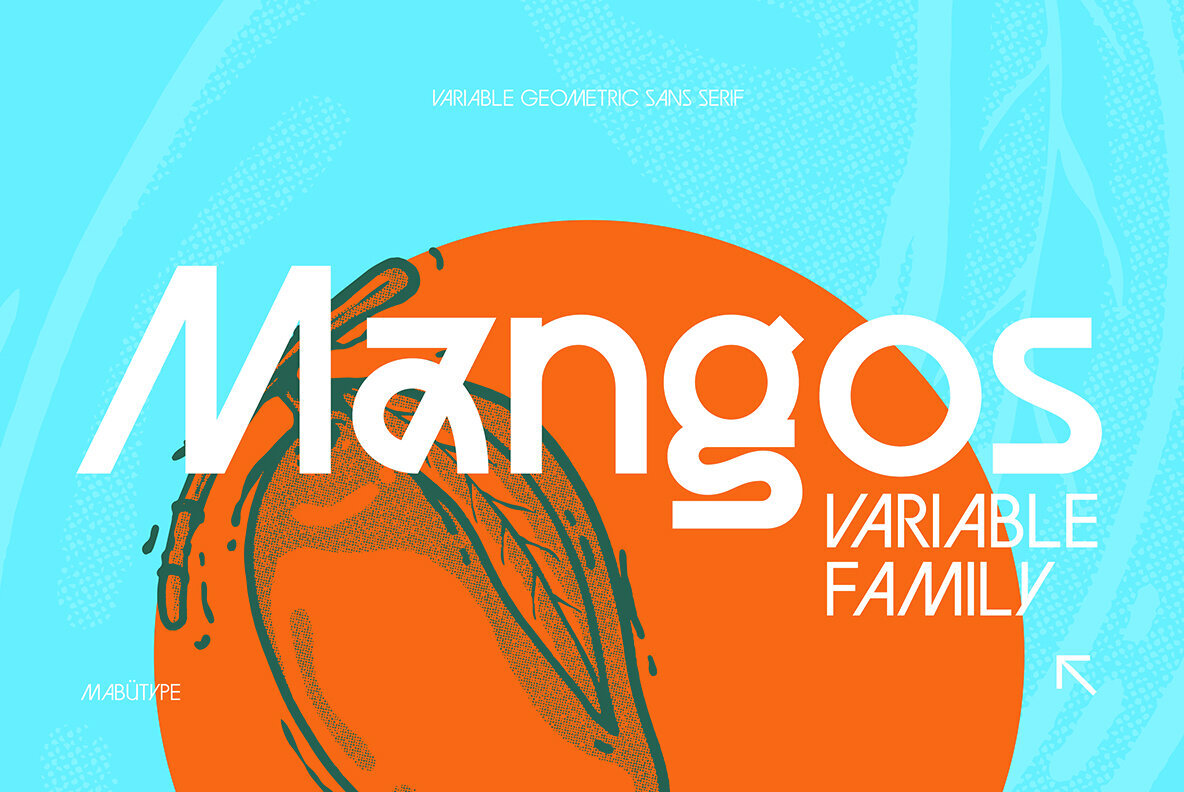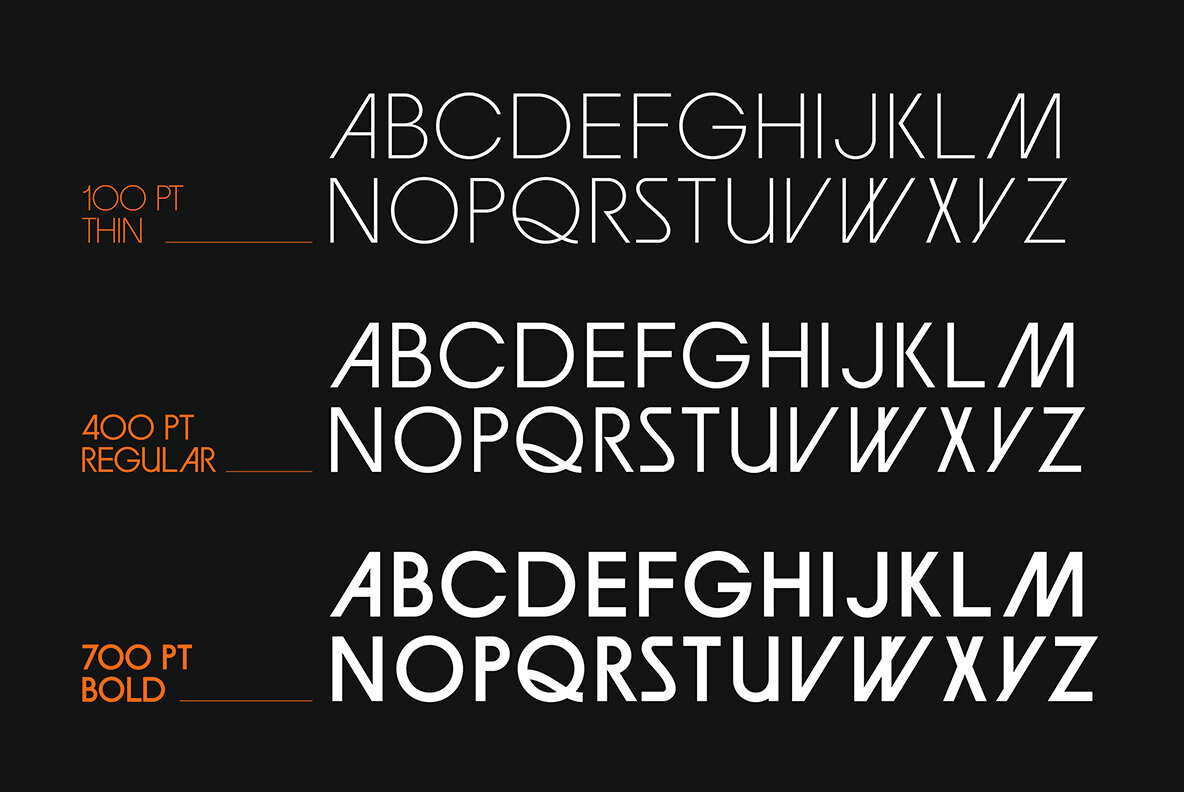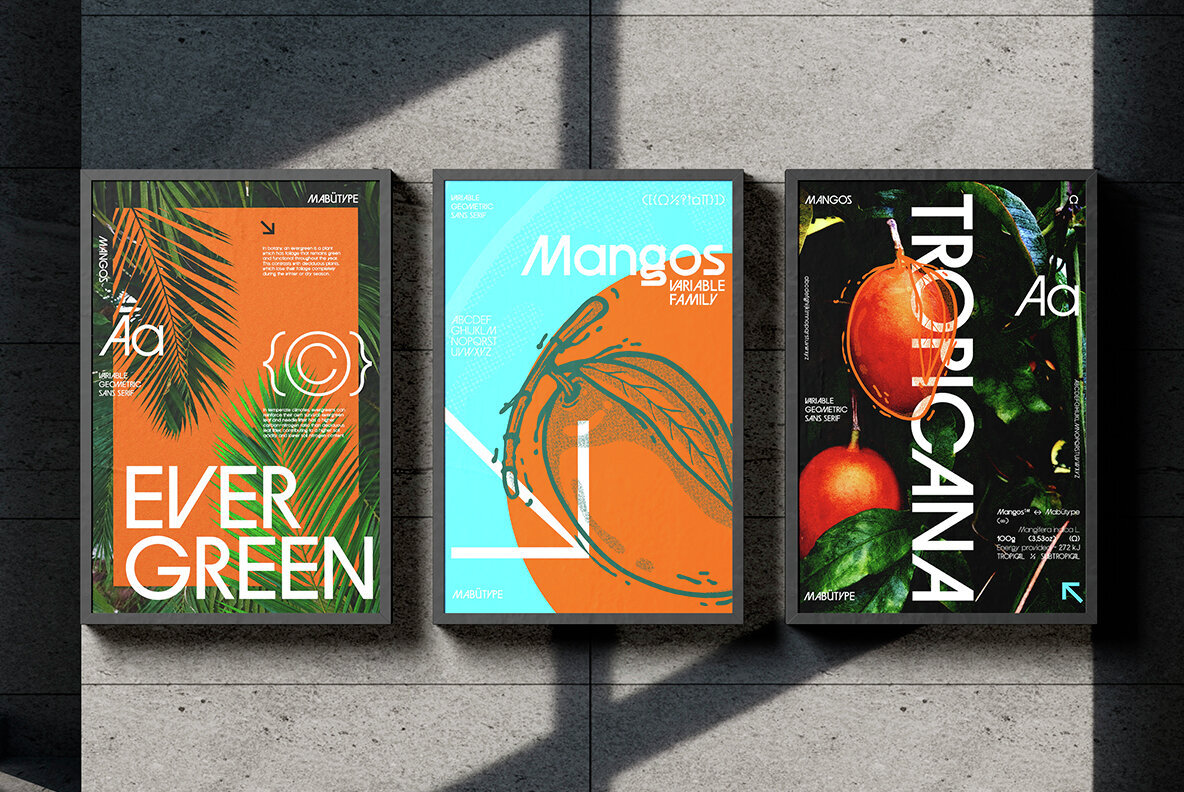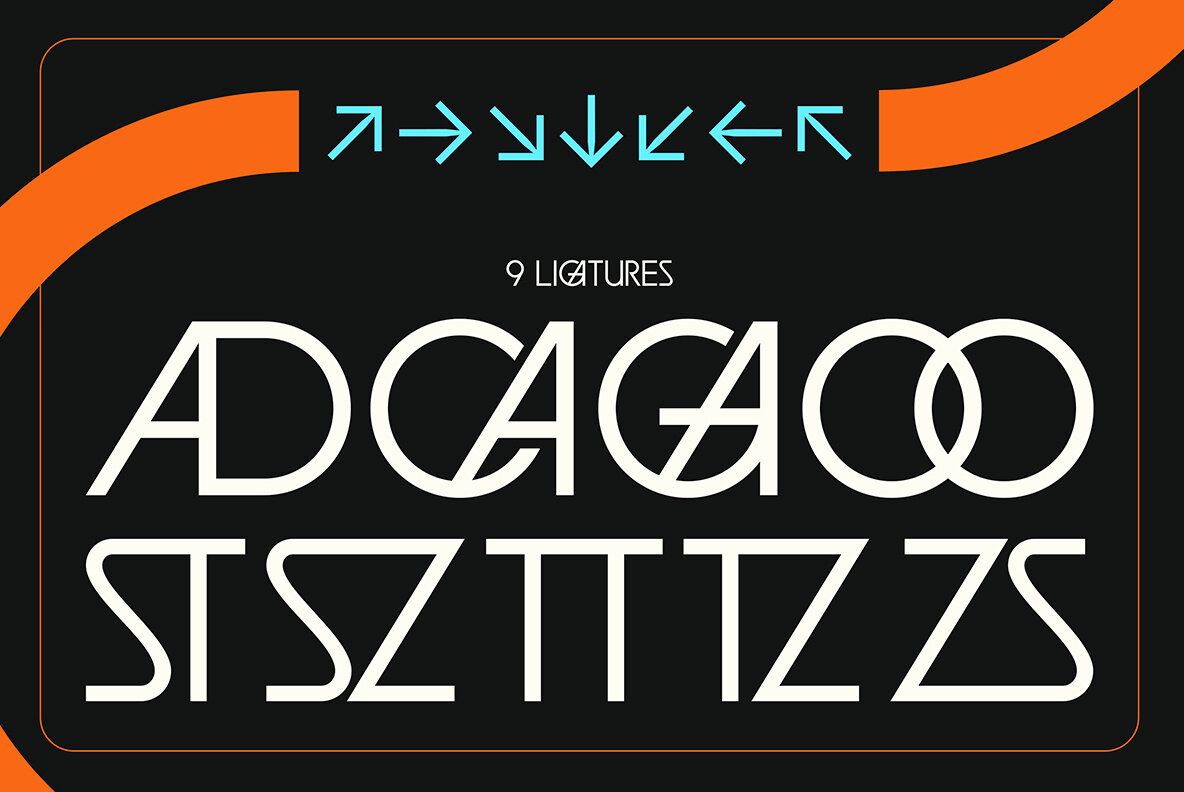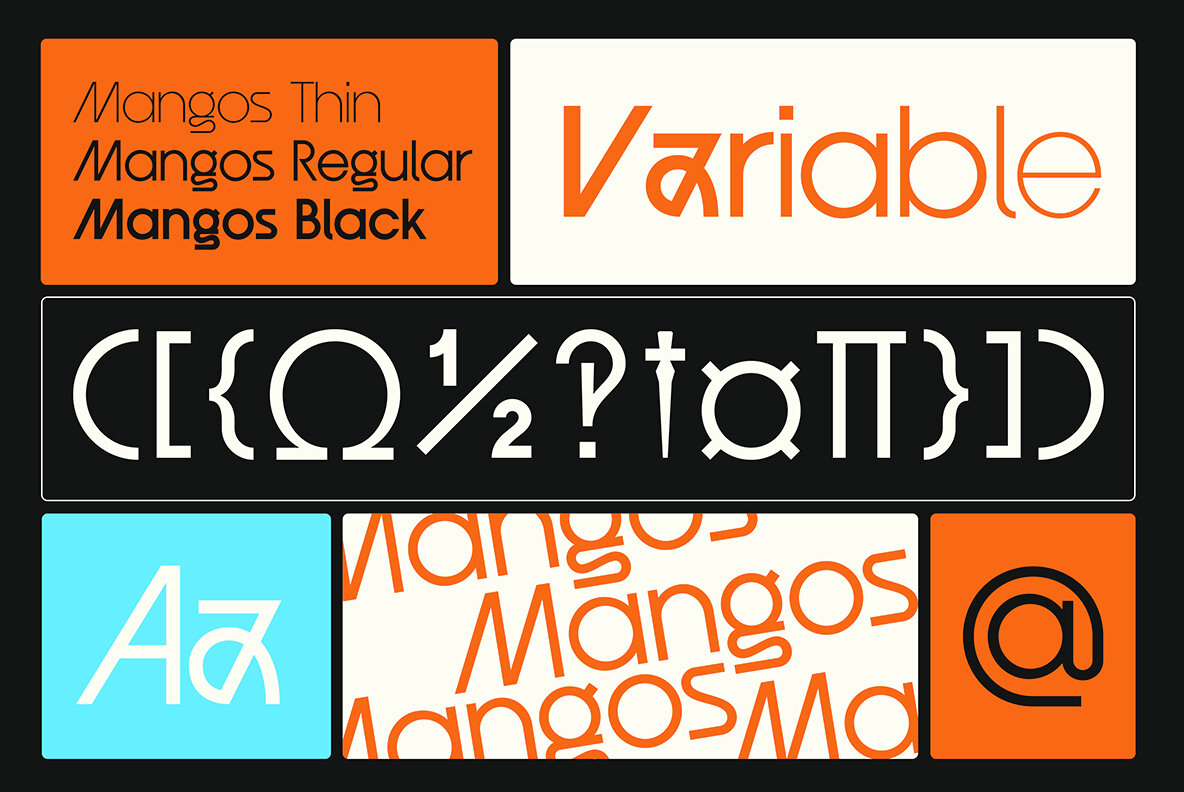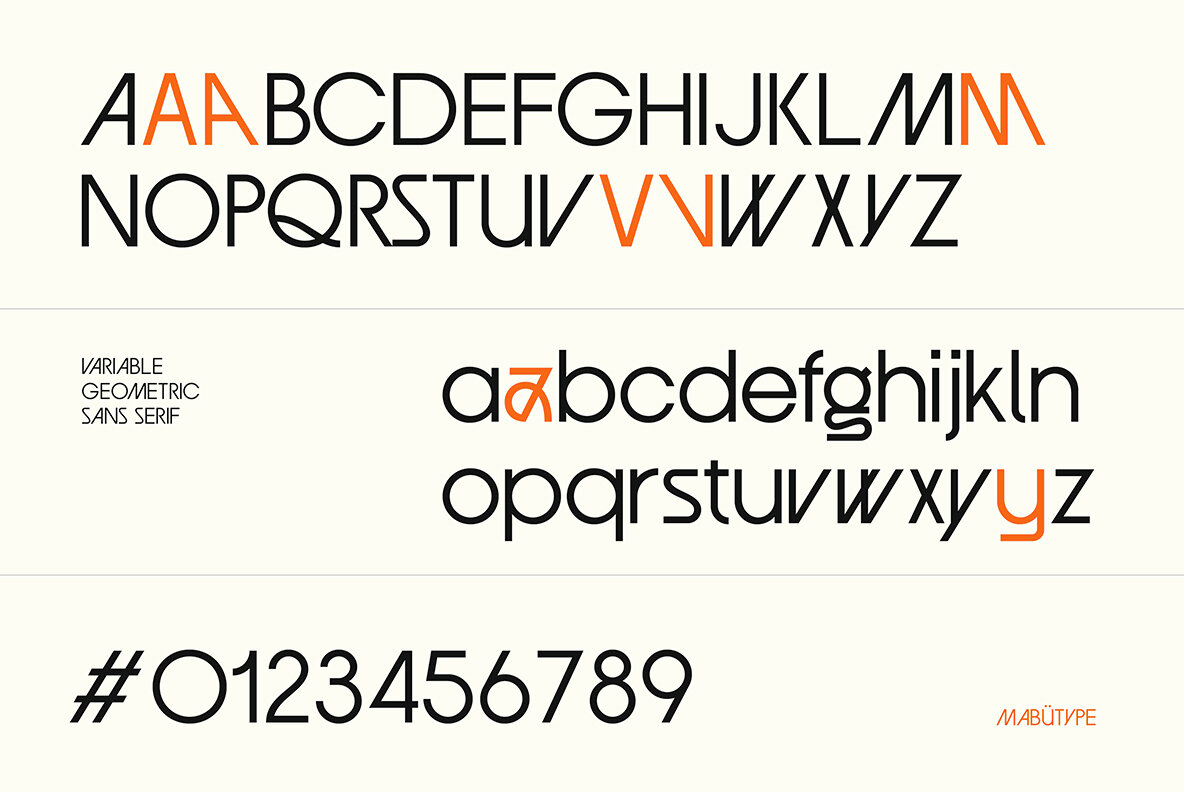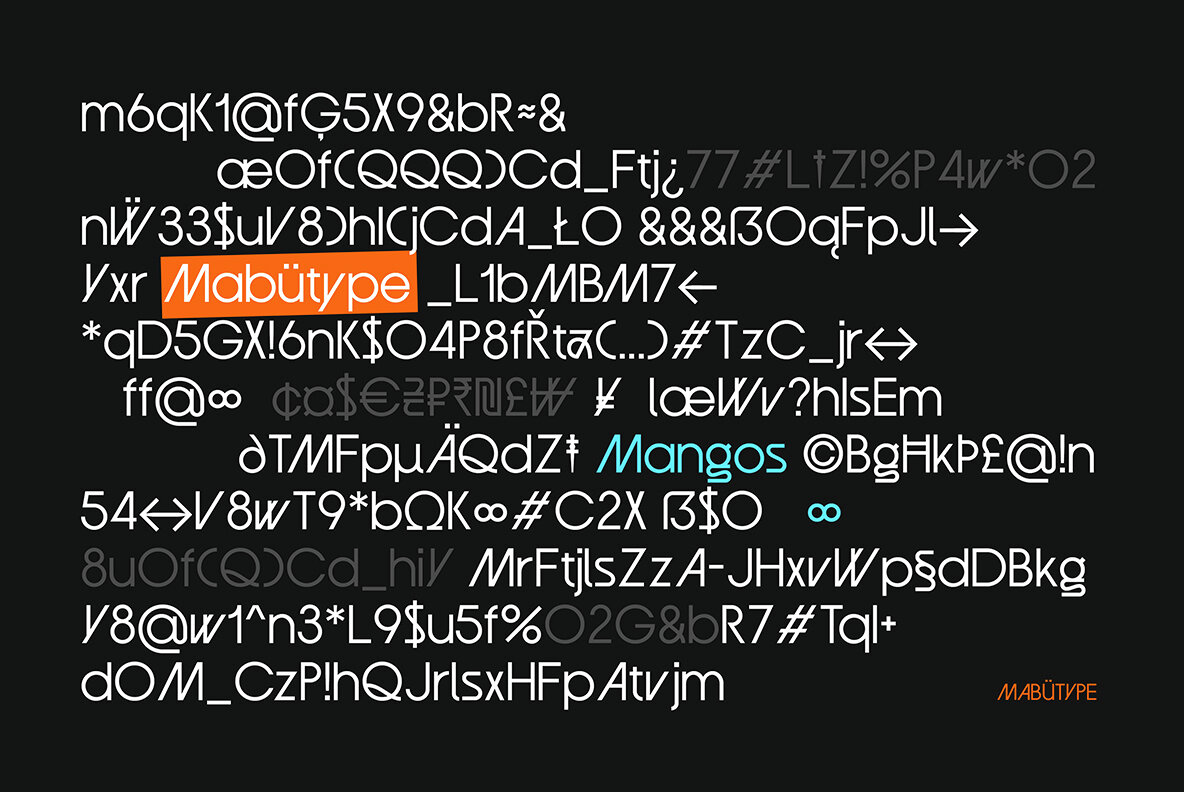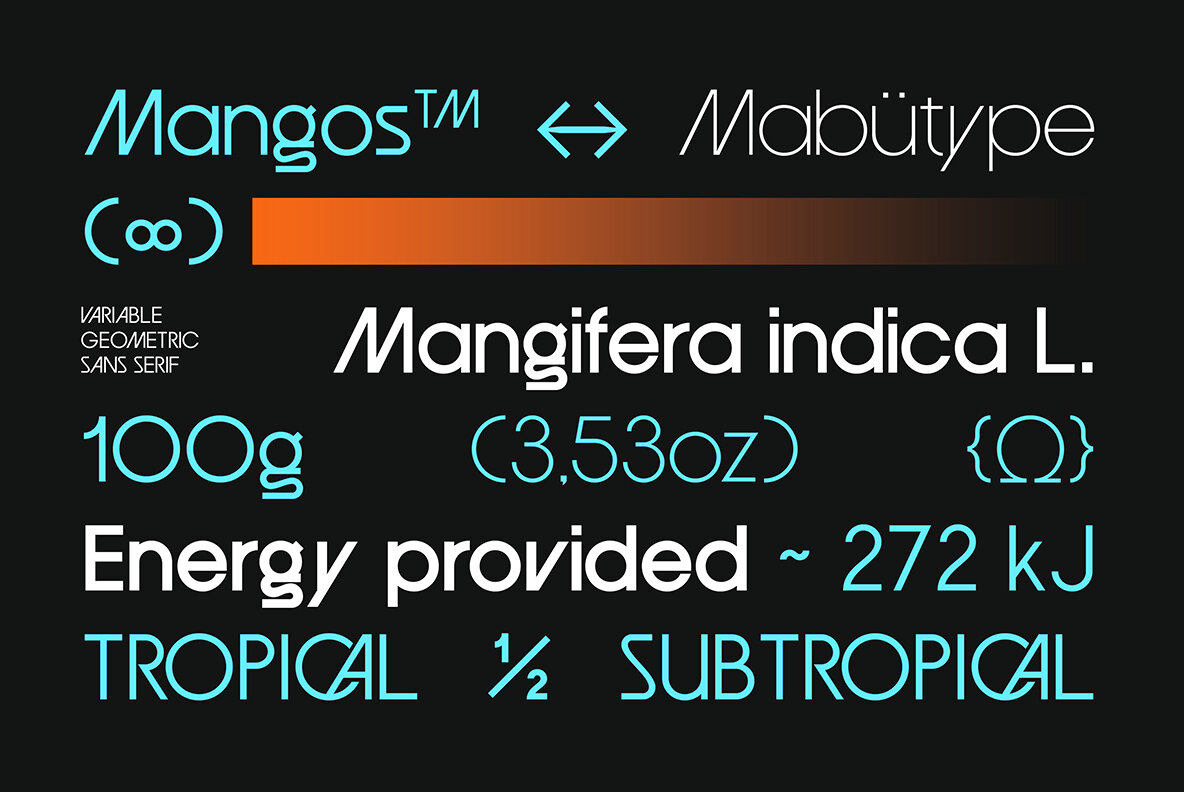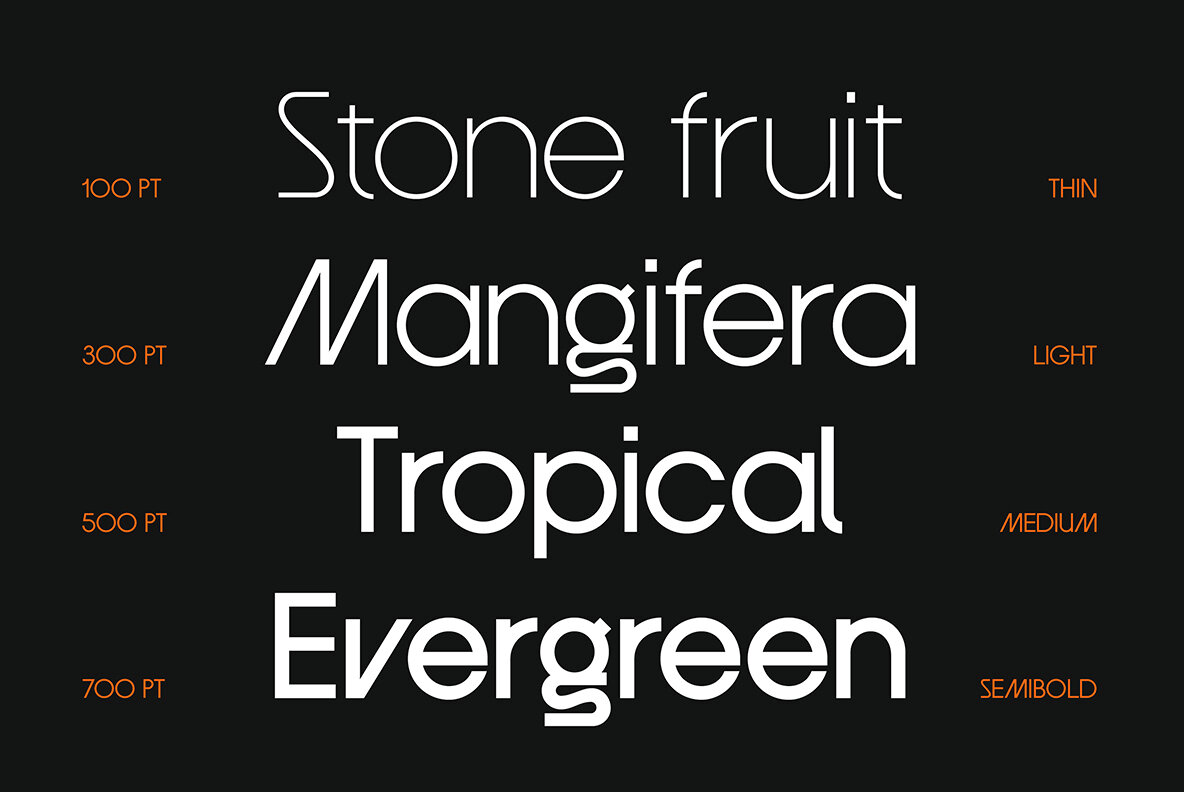
Mangos Font
Blending modern flair with a touch of geometric precision, Mangos is the quintessential sans serif for those seeking a playful yet sophisticated aesthetic. With its avant garde charm, the typeface bridges traditional graphic design with contemporary expression. Offering stylistic alternates for both lowercase and uppercase letters, it adapts seamlessly to a variety of creative projects. Multilingual support and an extensive character set featuring over 400 glyphs, including unique symbols like the interrobang, make Mangos a practical choice for international designers. Features:Mangos: Fun Avant Garde Style Sans Serif